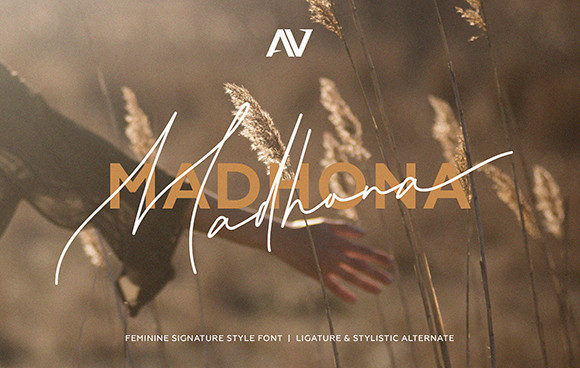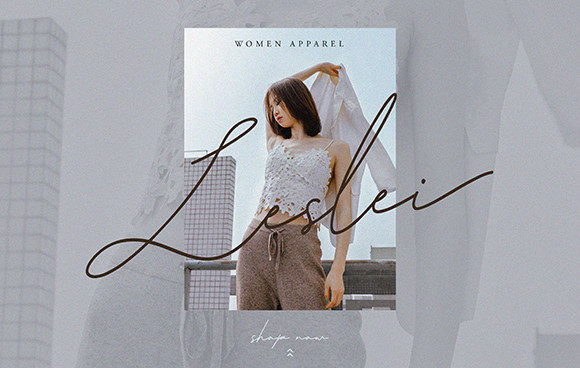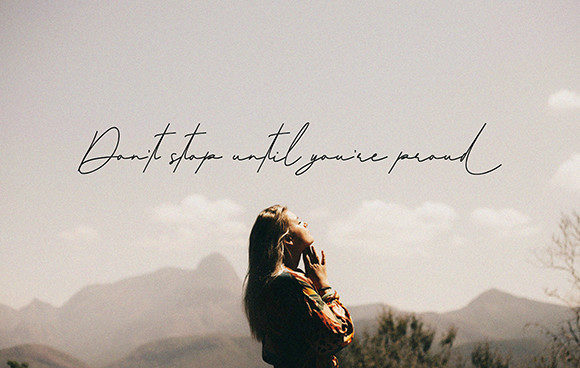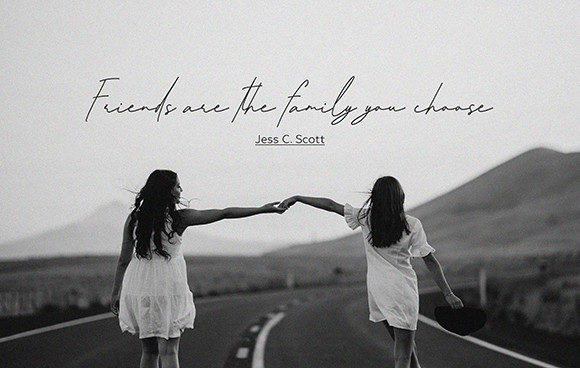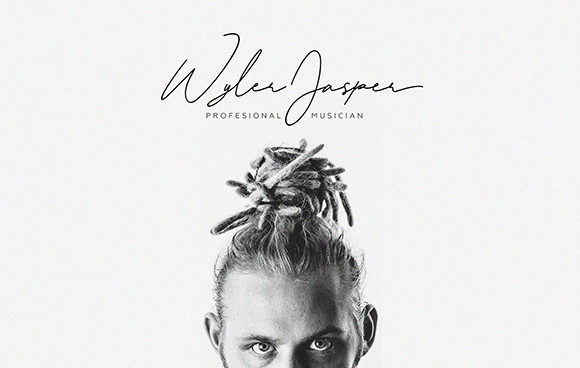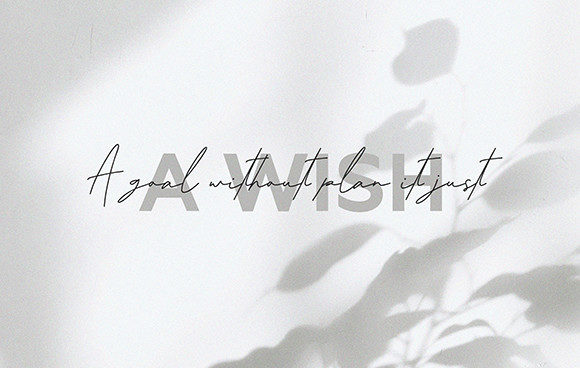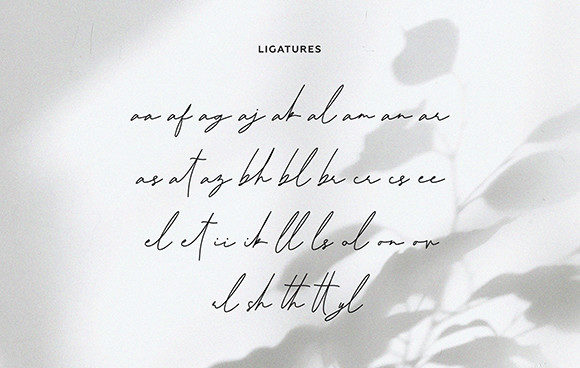
Madhona Font
About Madhona Font
Madhona is a delicate, thin lettered and cool handwritten font. It will add a luxury spark to any design project that you wish to create! Fall for its ravishing style and use it to create gorgeous designs.